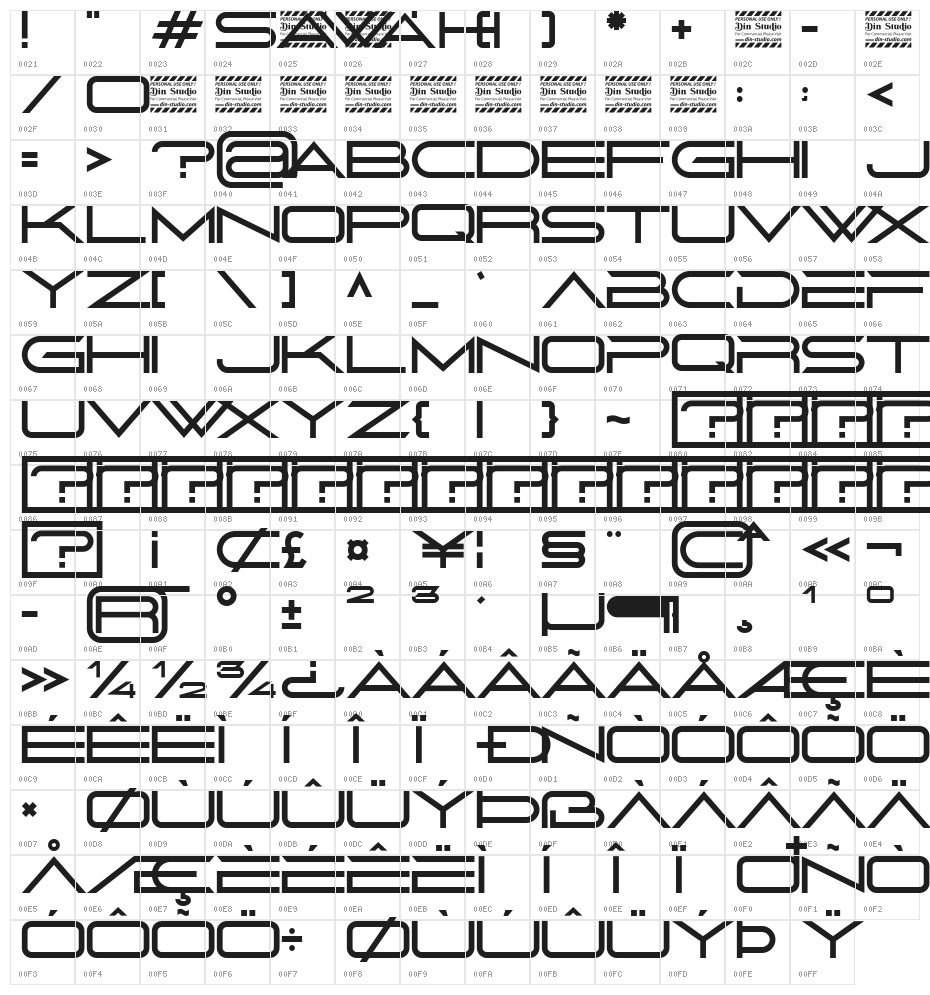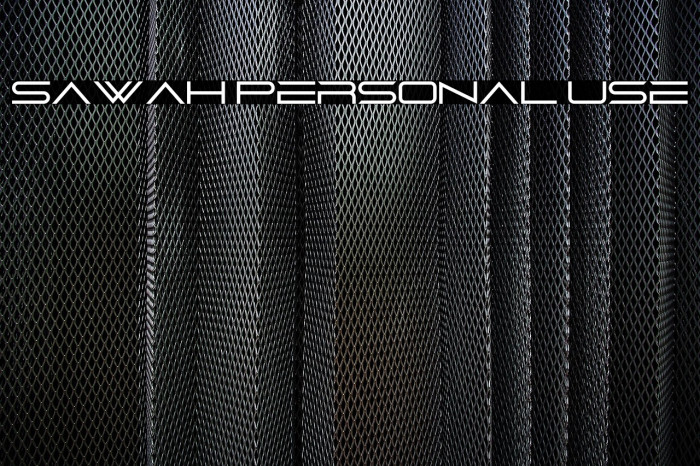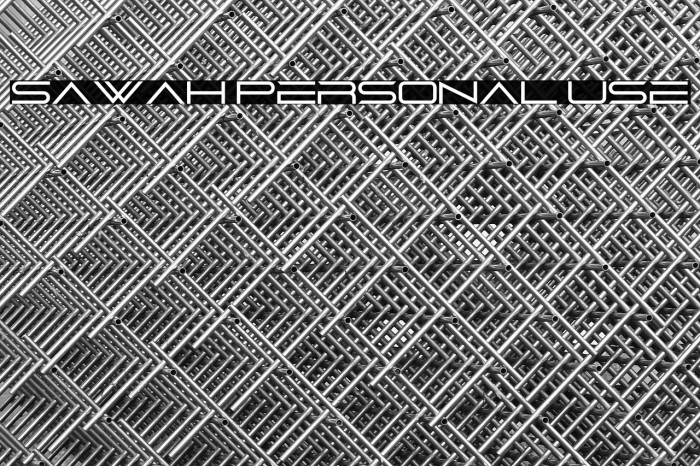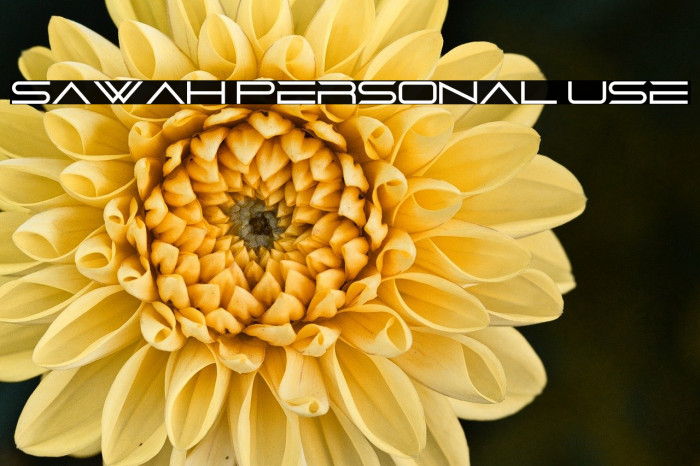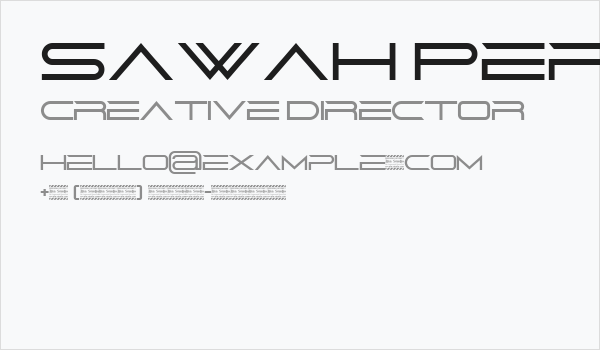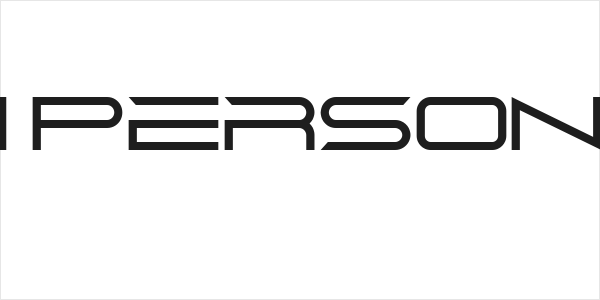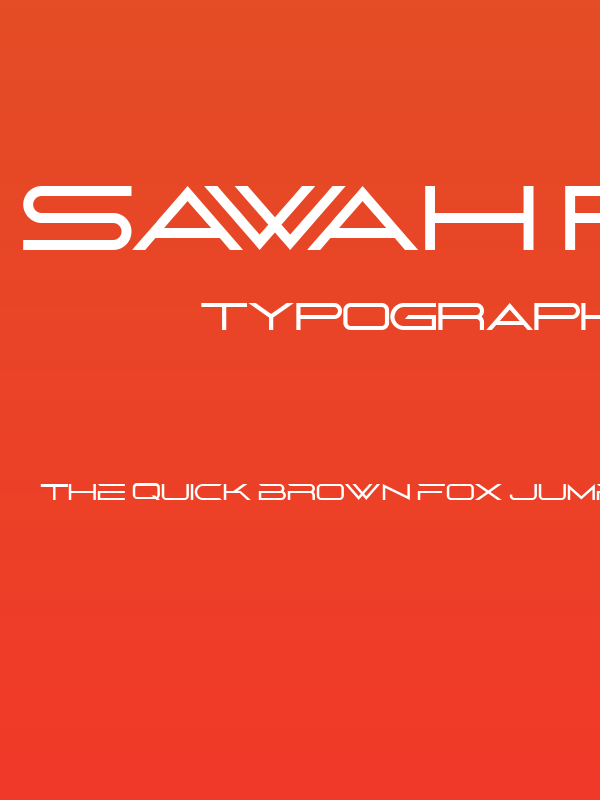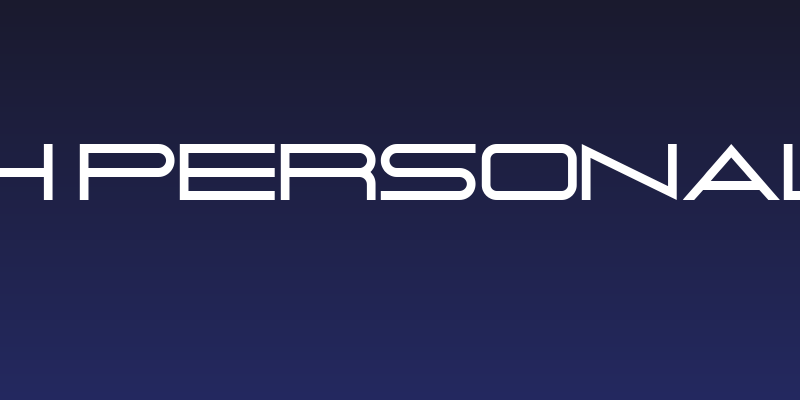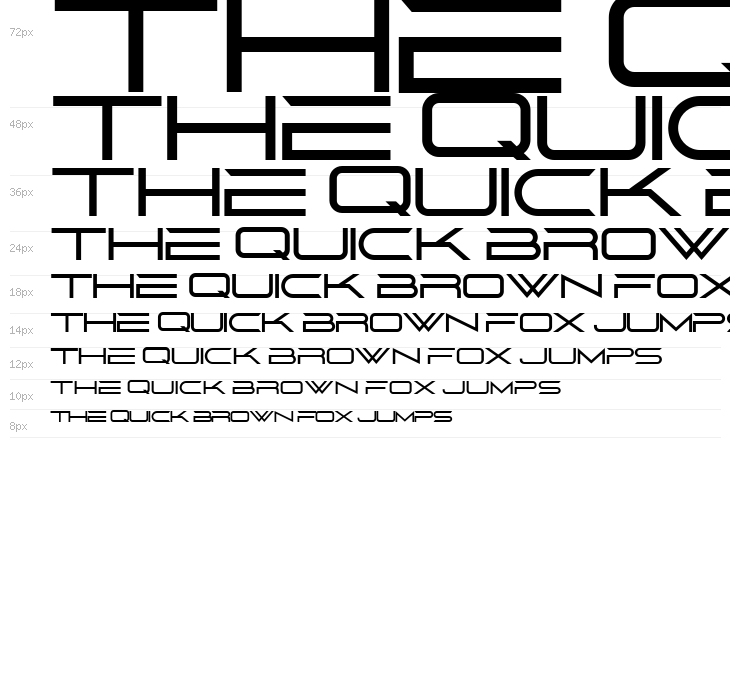
Sawah Personal Use Font
Sawah Personal Use Description
This font features a modern, geometric style with a futuristic edge. The characters are constructed with clean, straight lines and sharp angles, creating a sense of precision and sleekness. The uppercase and lowercase letters maintain a consistent height, contributing to a uniform appearance. The numerals and special characters follow the same design principles, ensuring visual harmony across all elements. The font's design is minimalistic yet distinctive, making it suitable for projects that require a contemporary and tech-savvy look.
| Overall Style | Futuristic, Geometric |
| Use Case | Headlines, Logos, Digital Interfaces |
| Proposed Projects | Ideal for technology branding, sci-fi themed projects, modern advertising, and digital interfaces. |